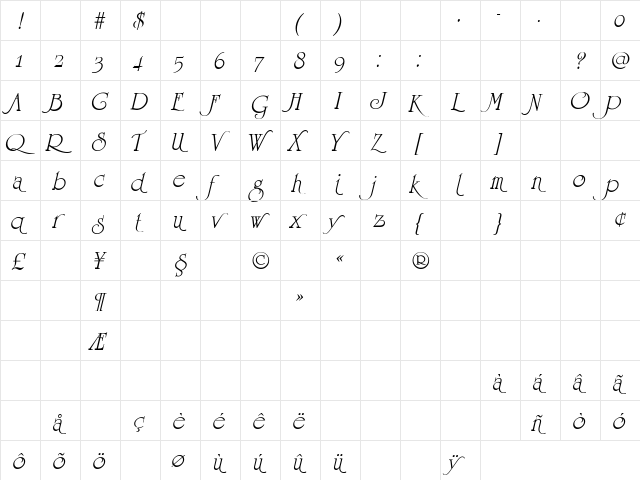
University Italic Swash Regular
Design Context for University Italic Swash Typeface
University Italic Swash flows with the natural rhythm of handwritten lettering, making it ideal for designs that call for warmth and personal expression.
Font Pairing: Combine University Italic Swash with a simple geometric sans for maximum contrast — the tension between flowing curves and clean structure is a classic typographic pairing.
Pro Tip: Pair University Italic Swash with a clean sans-serif for supporting text. The contrast between fluid script and geometric structure creates an elegant typographic hierarchy.